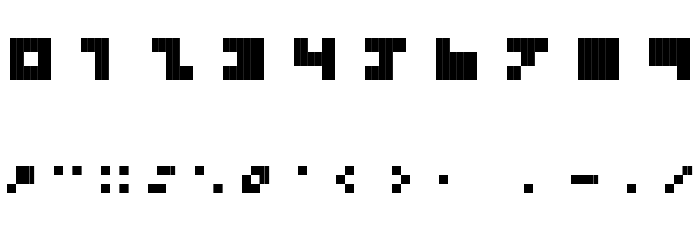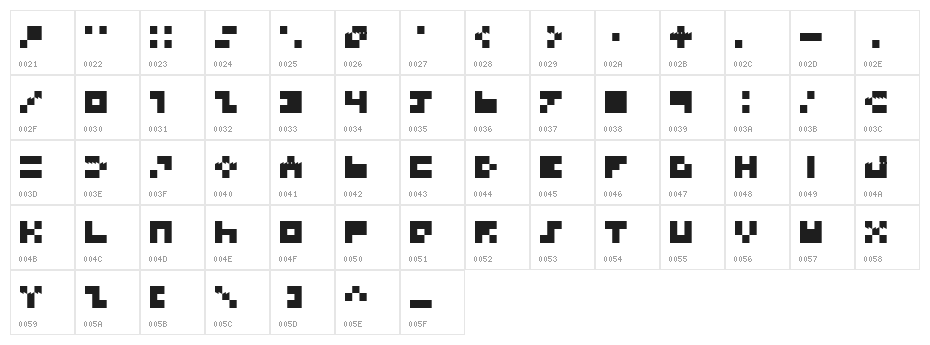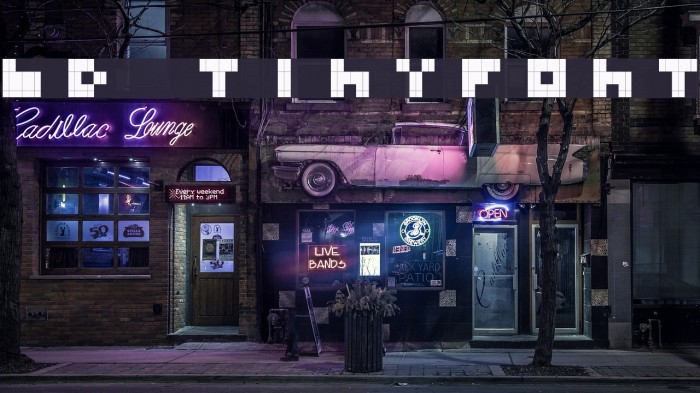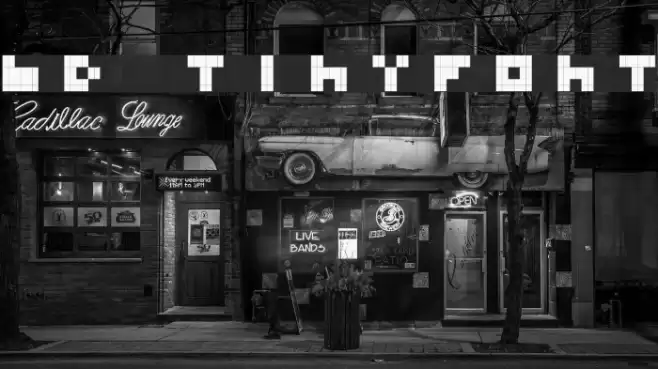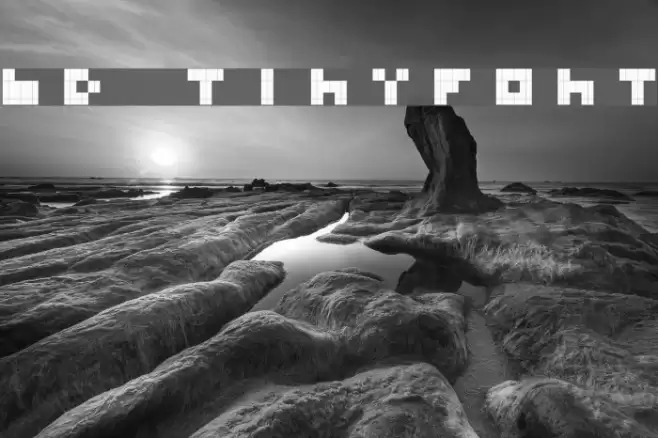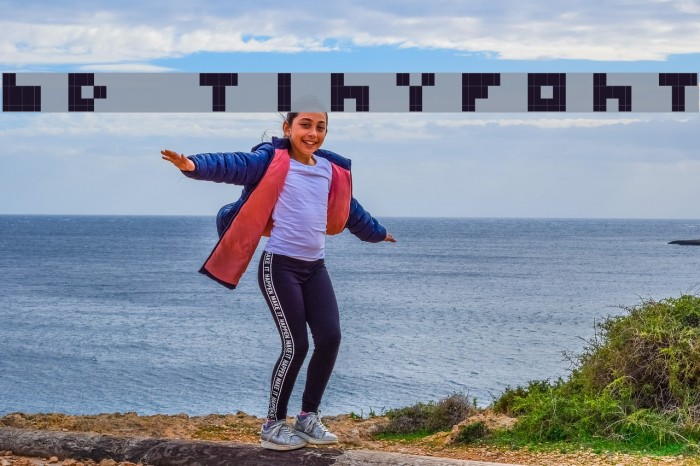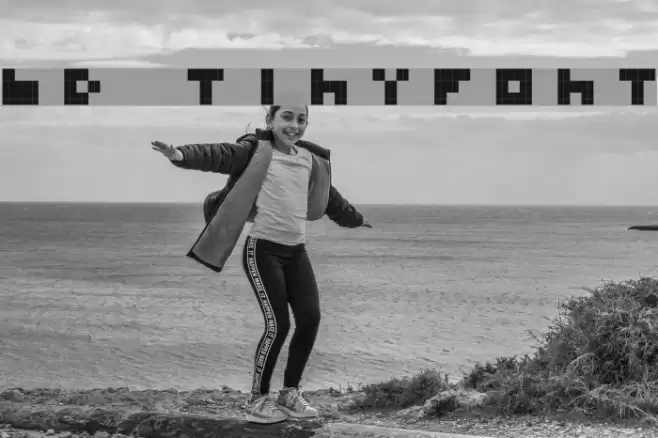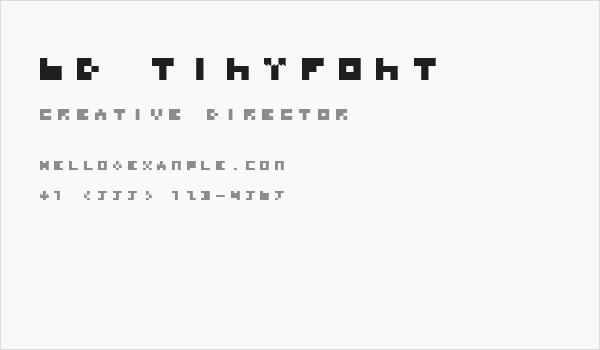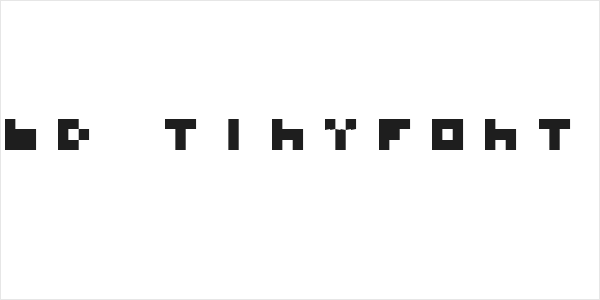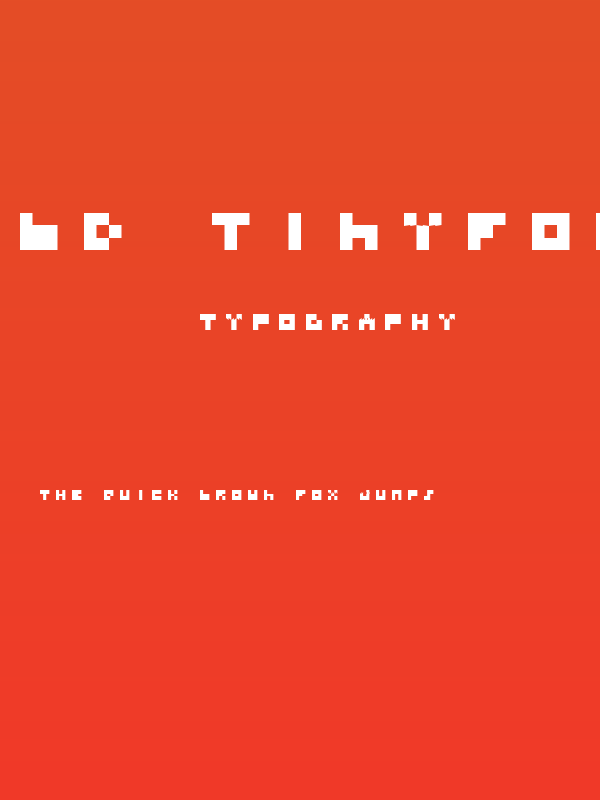
BD TINYFONT Font
BD TINYFONT Description
This font is a pixelated, grid-based typeface that embodies a retro, digital aesthetic reminiscent of early computer graphics and video games. Each character is constructed from a series of small, square blocks, creating a distinct, low-resolution appearance. The uniformity in the block size across all characters gives it a cohesive and structured look. Despite its simplicity, the font maintains legibility and charm, making it ideal for projects that aim to evoke nostalgia or a tech-inspired feel. The characters are evenly spaced, contributing to its clean and organized presentation.
| Use Case | Logos, Headlines, Digital Art |
| Proposed Projects | Ideal for retro video games, tech-themed designs, digital art projects, and any creative work that requires a nostalgic or digital feel. |